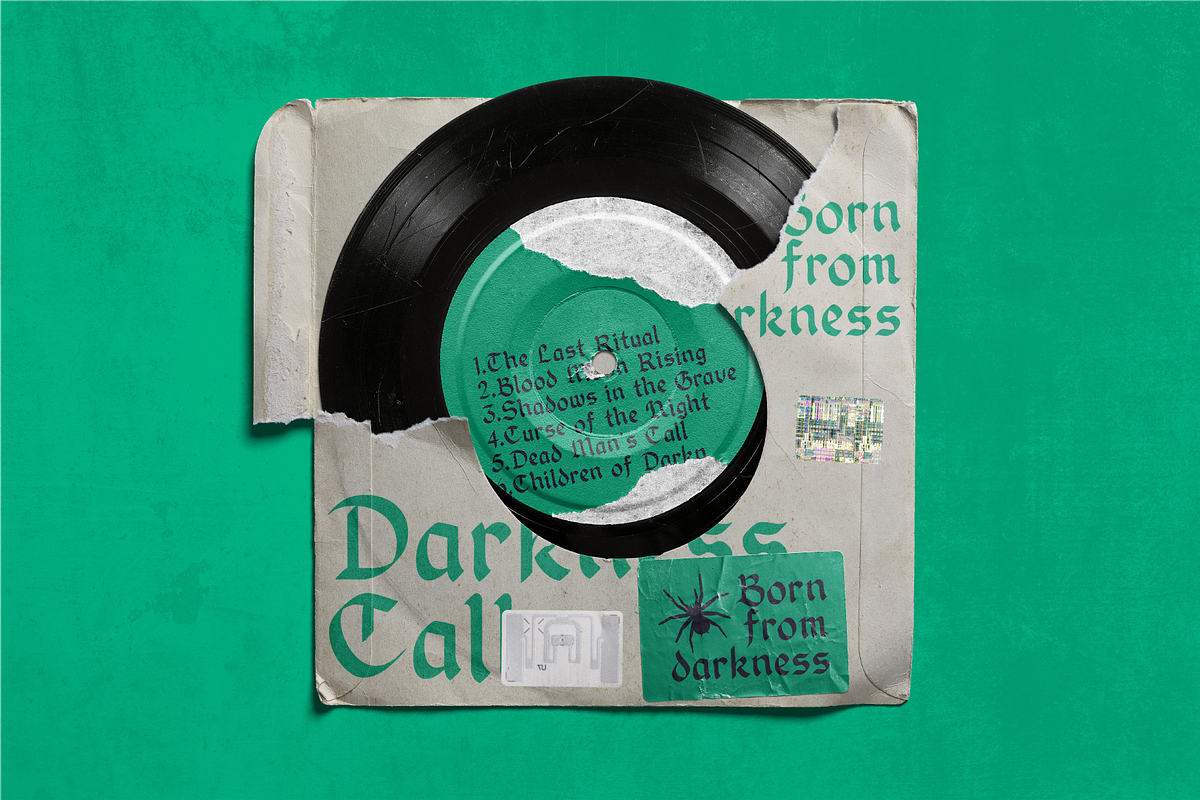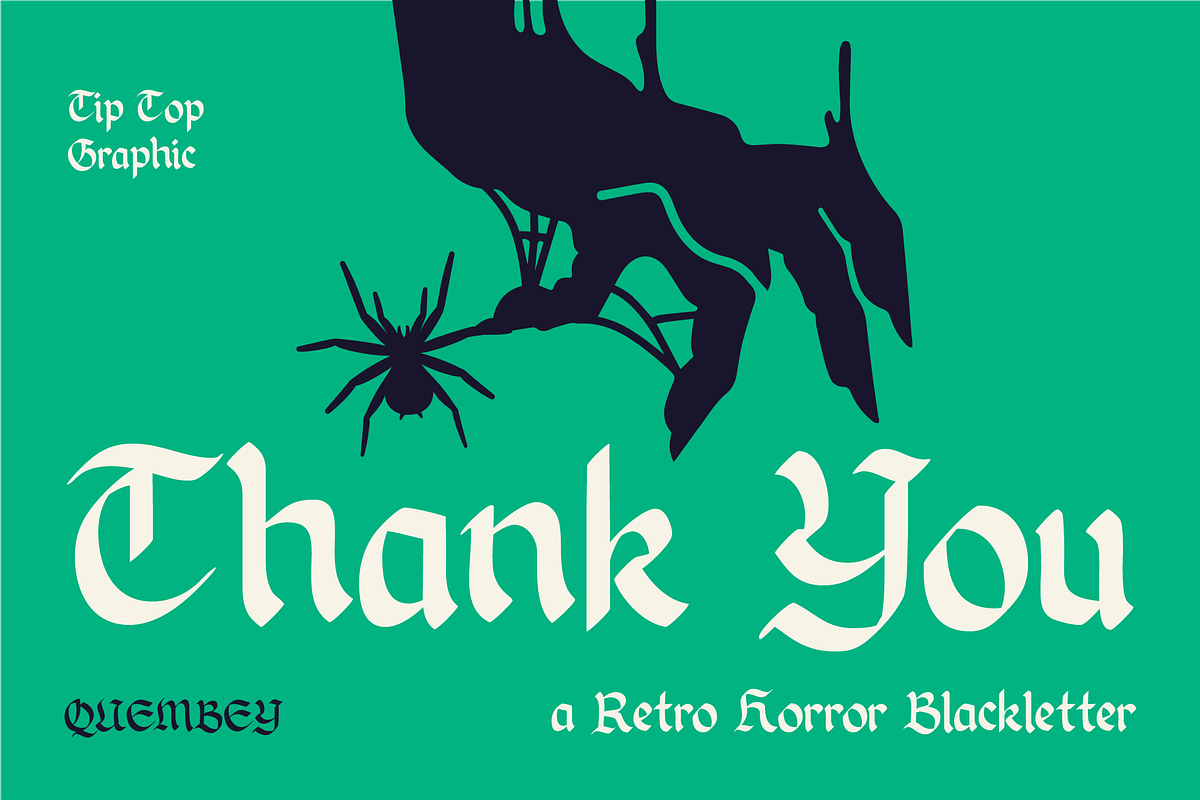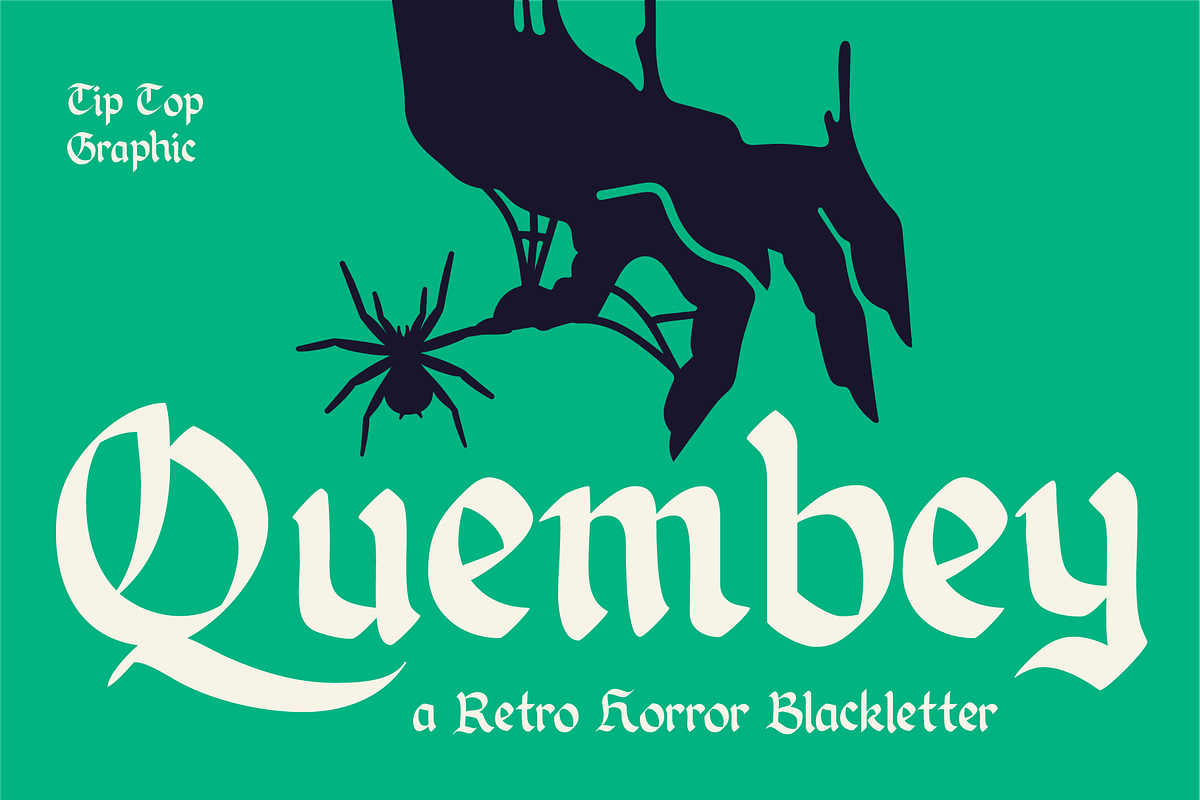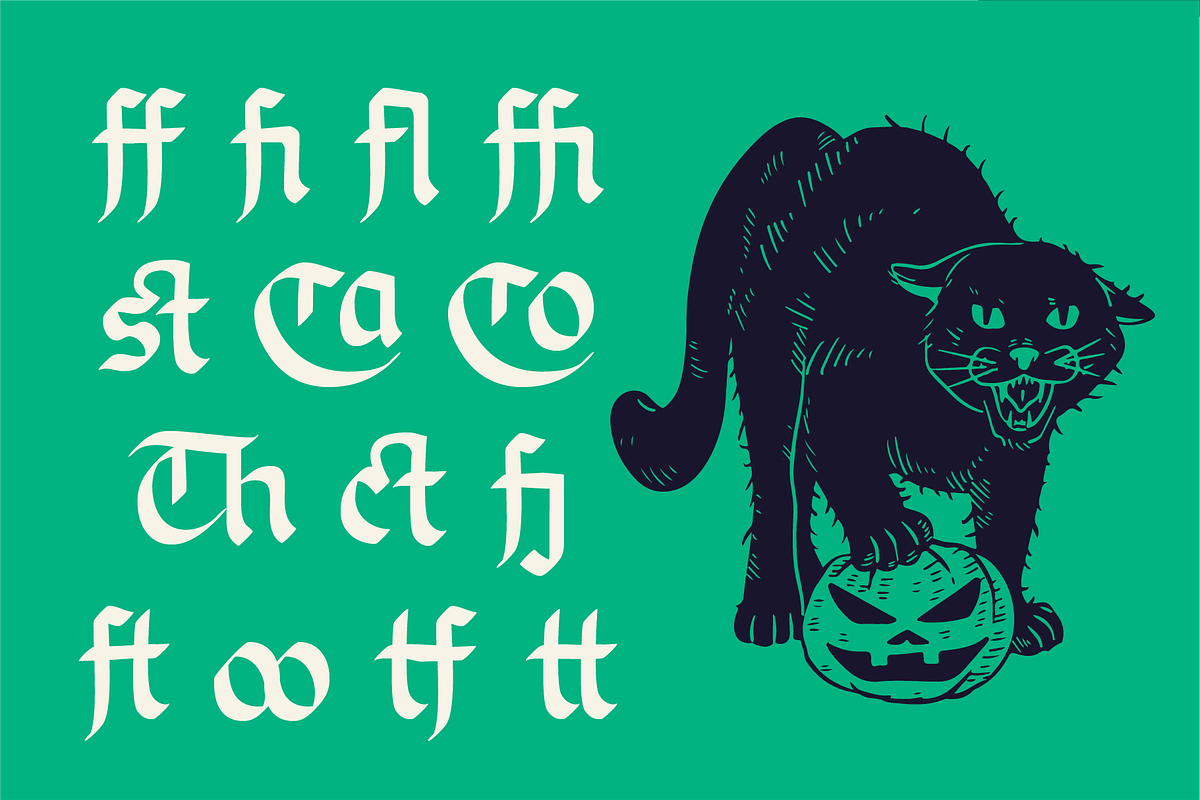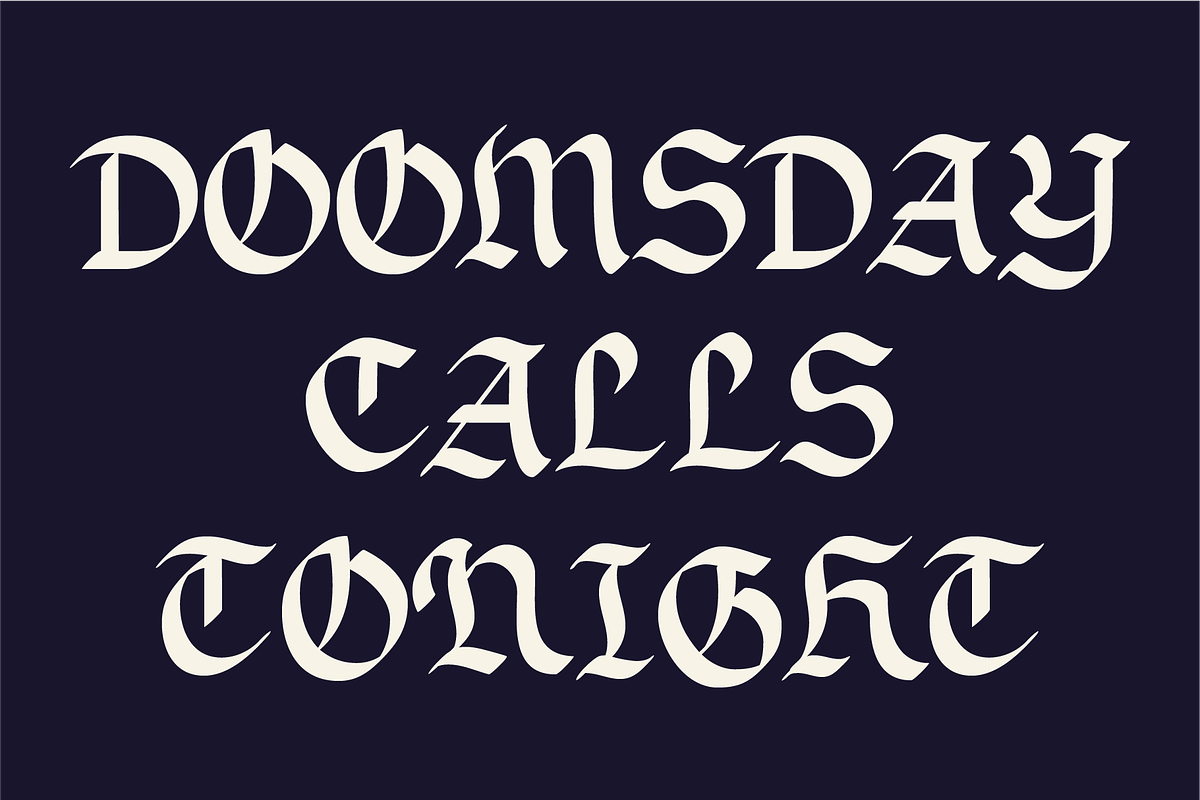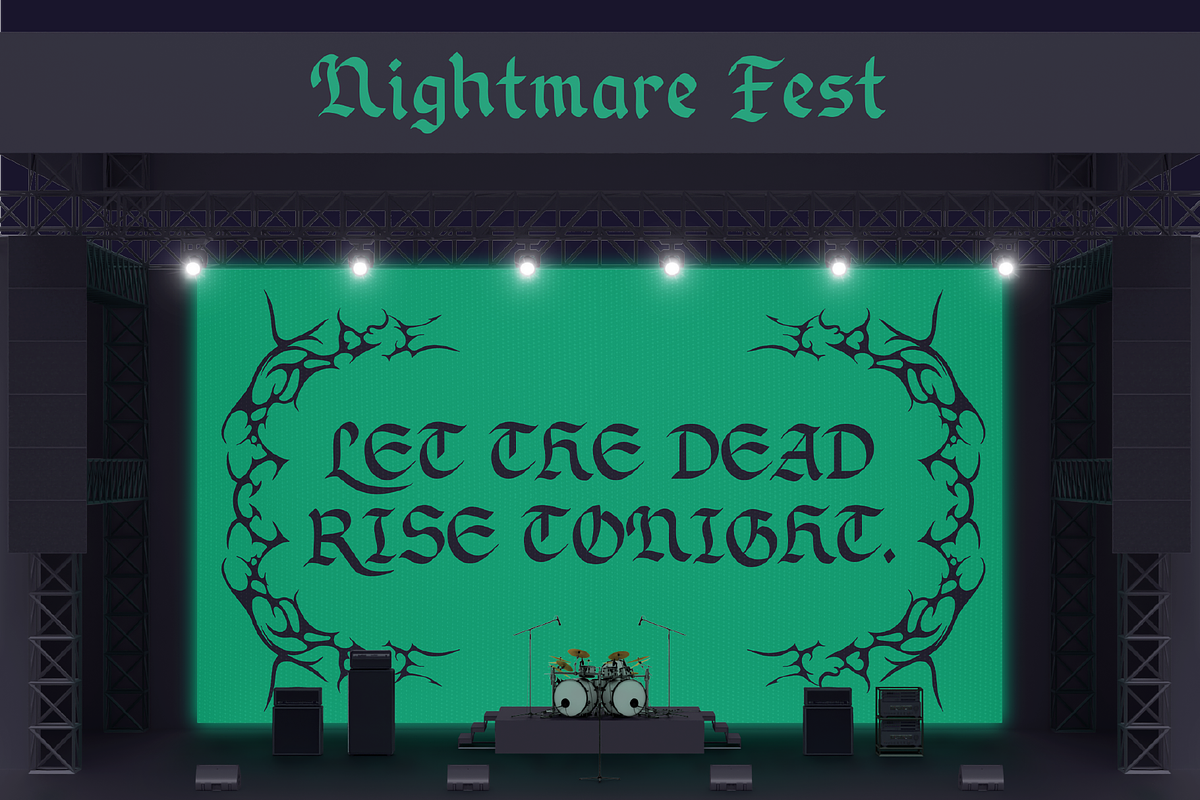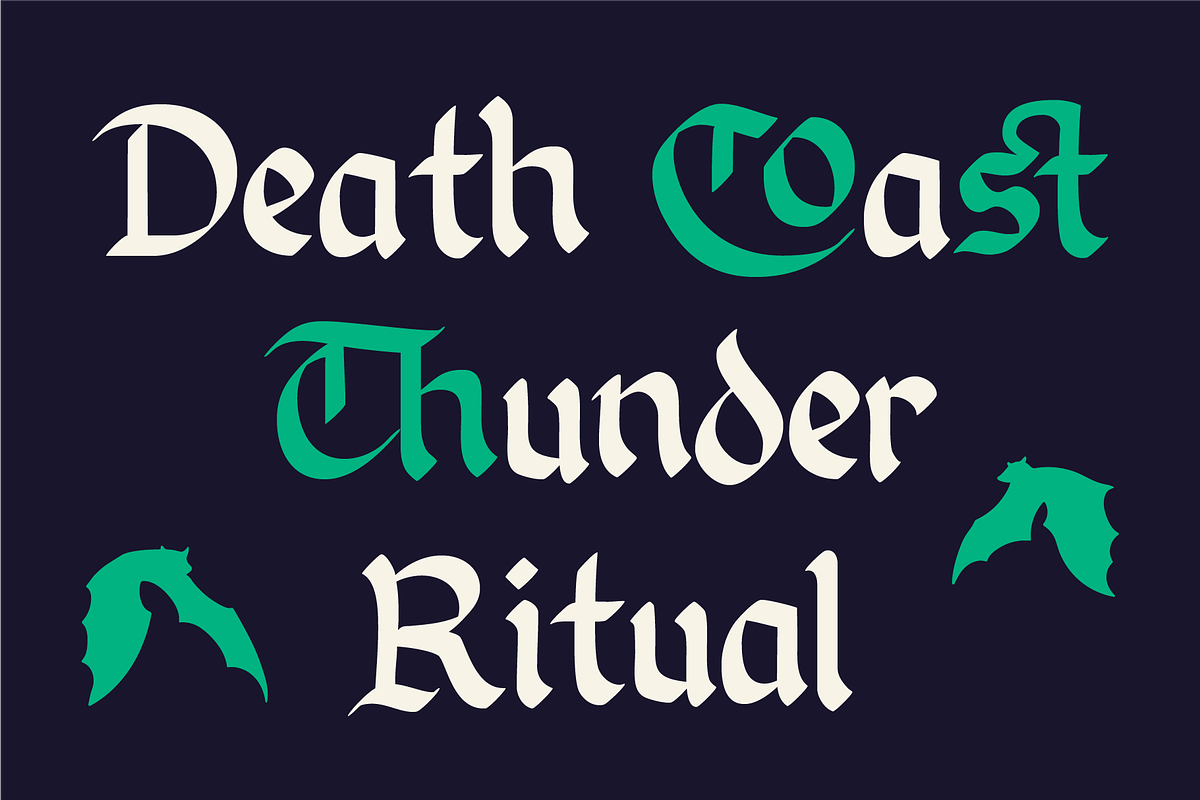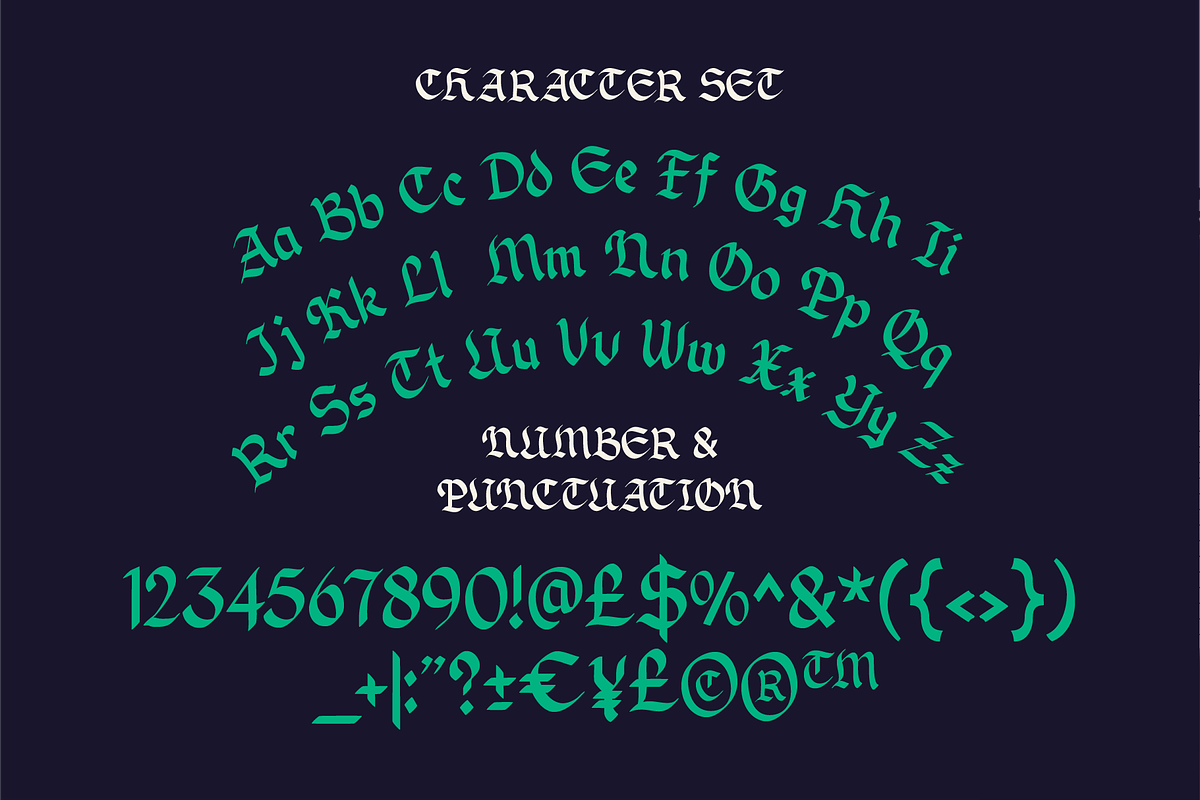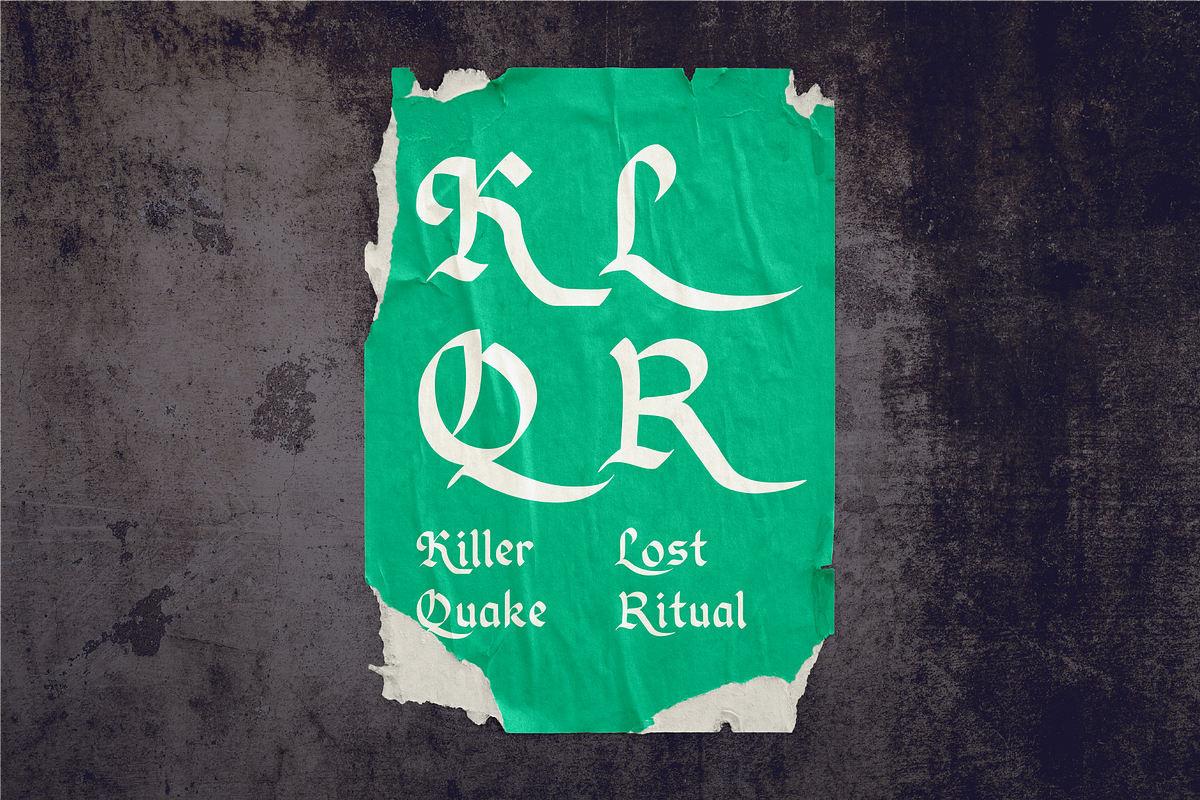
Quembey – Retro Horror Blackletter
Quembey – Retro Horror Blackletter Font
Step into a dark and mysterious aesthetic with Quembey, a retro horror blackletter font that combines vintage typography with an eerie, gothic atmosphere. Featuring bold, intricate letterforms and a haunting old-school character, Quembey is designed to bring a dramatic and distinctive edge to your creative projects.
Perfect for horror posters, gothic branding, band logos, album covers, tattoos, apparel, Halloween designs, vintage packaging, and dark-themed artwork. Whether you’re creating a sinister visual identity or a striking retro-inspired composition, Quembey adds a bold and unforgettable presence to every design.
Quembey – Retro Horror Blackletter Font features:
Punctuation & Numbers